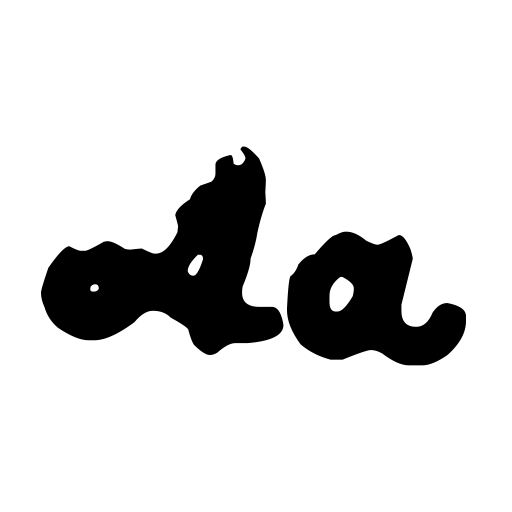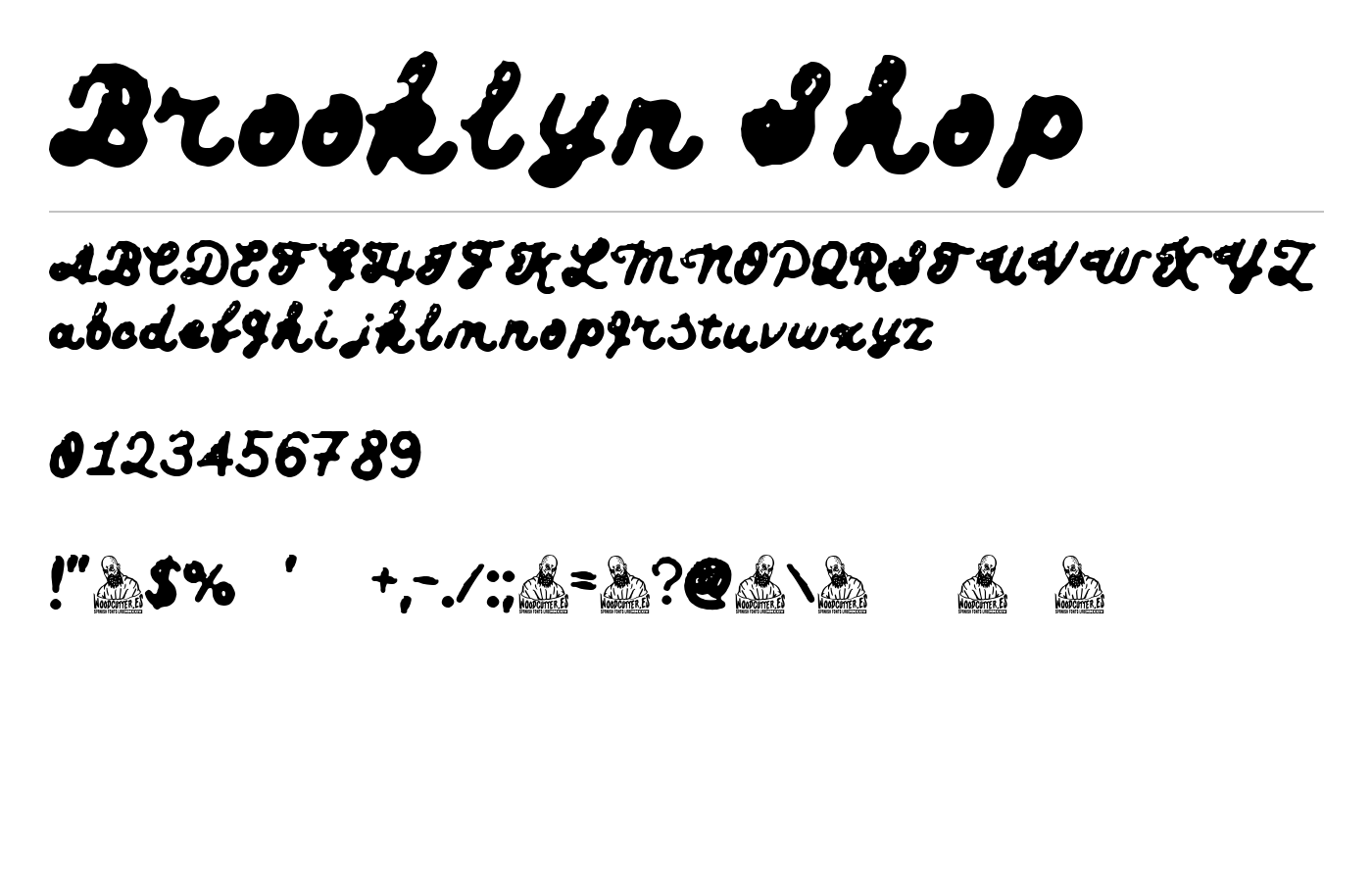
Brooklyn Shop is a bold, quirky script font with a playful and hand-crafted feel, characterized by its thick, uneven strokes and bubbly letterforms. Its casual, textured style makes it ideal for creative branding, posters, and packaging that seek a distinctive and lively personality. This font works best in display settings where its unique charm can shine and capture attention.
Brooklyn Shop Font
About Brooklyn Shop Font